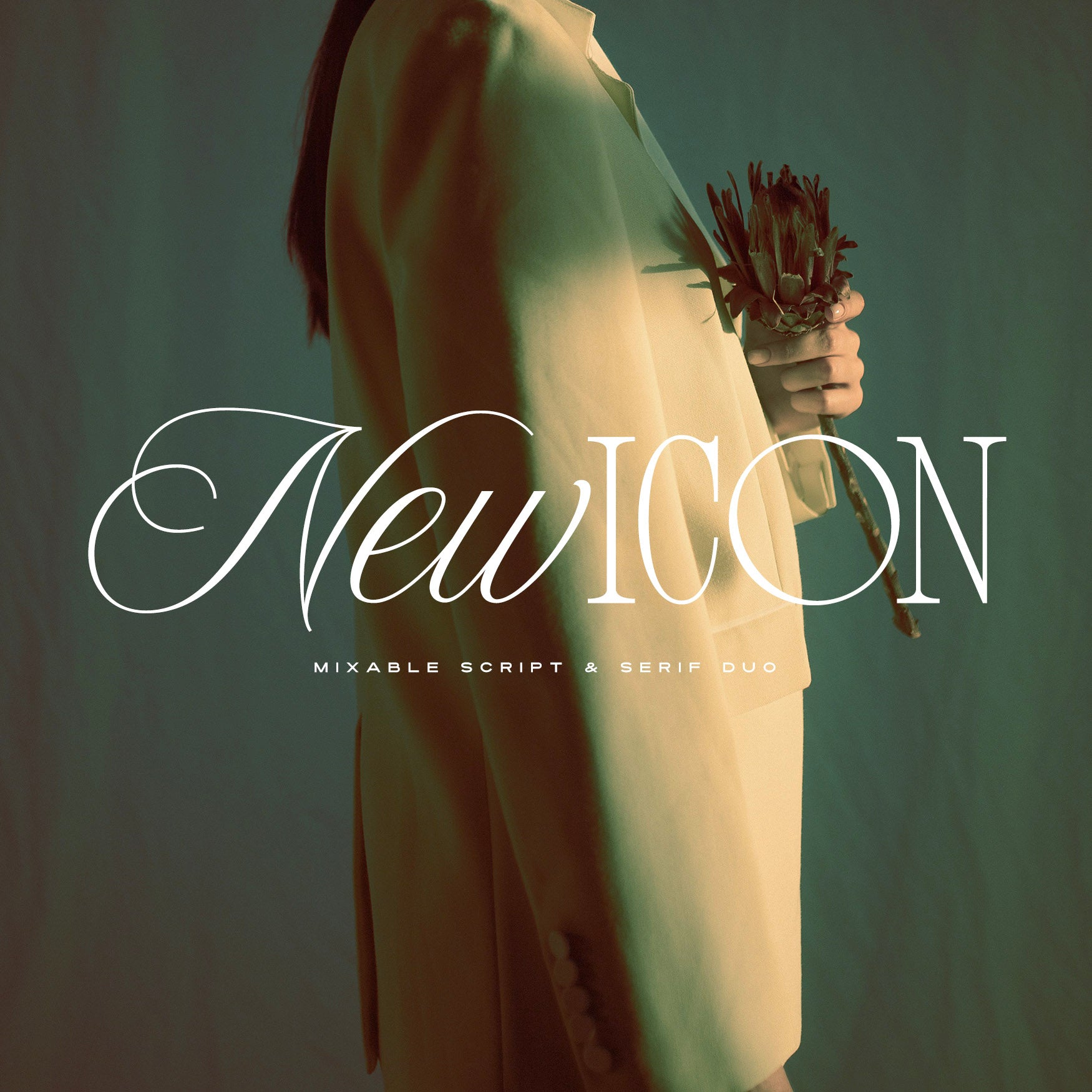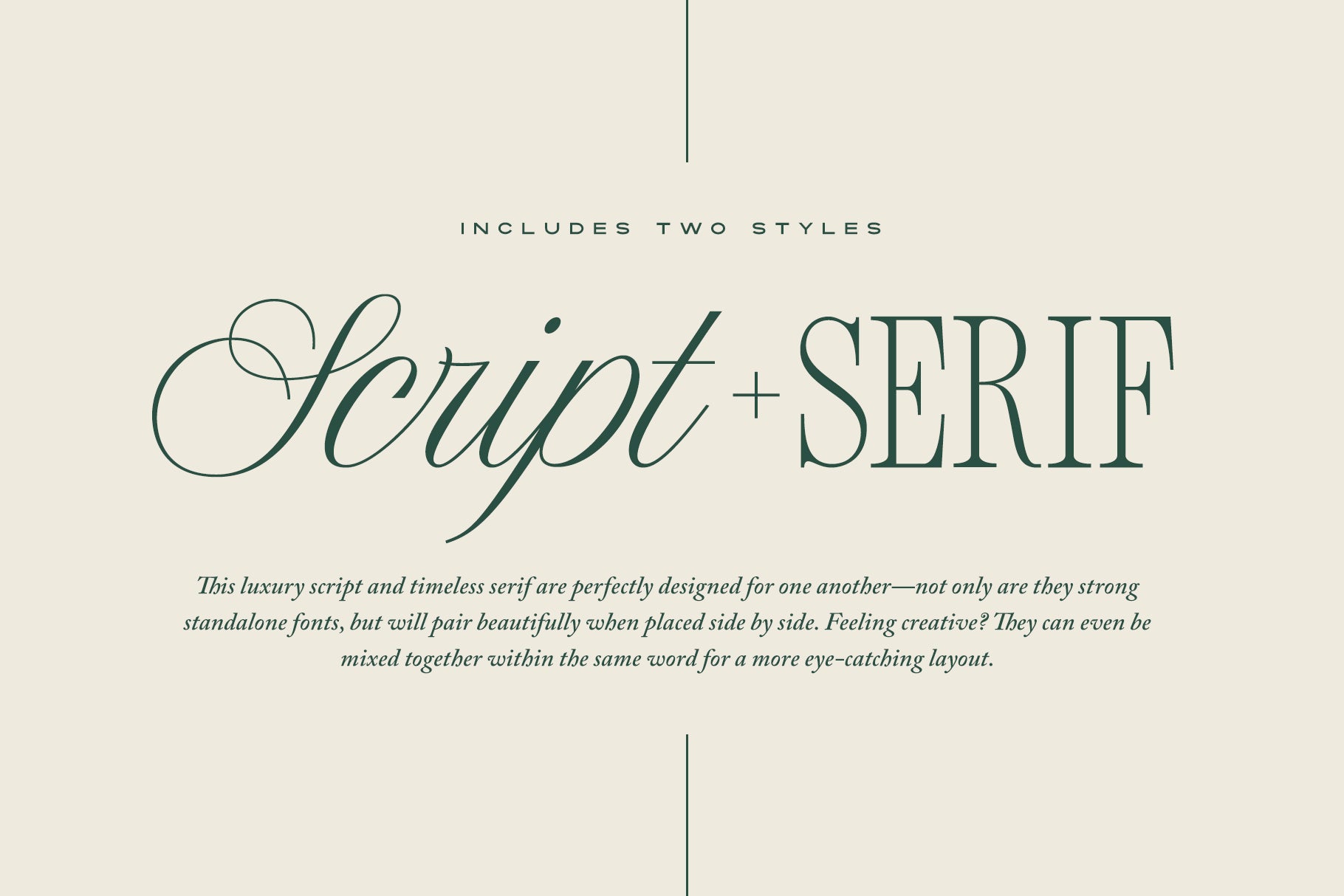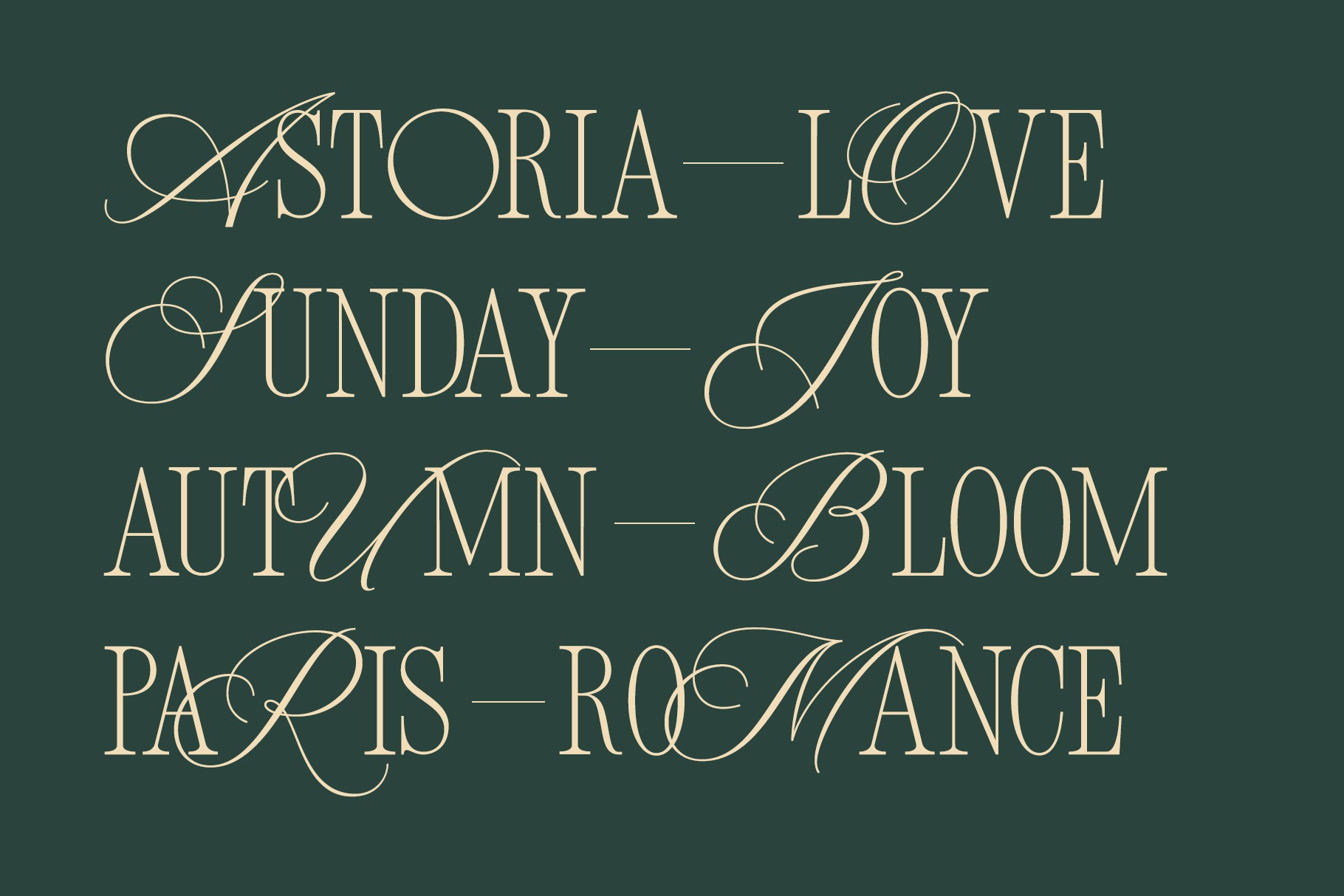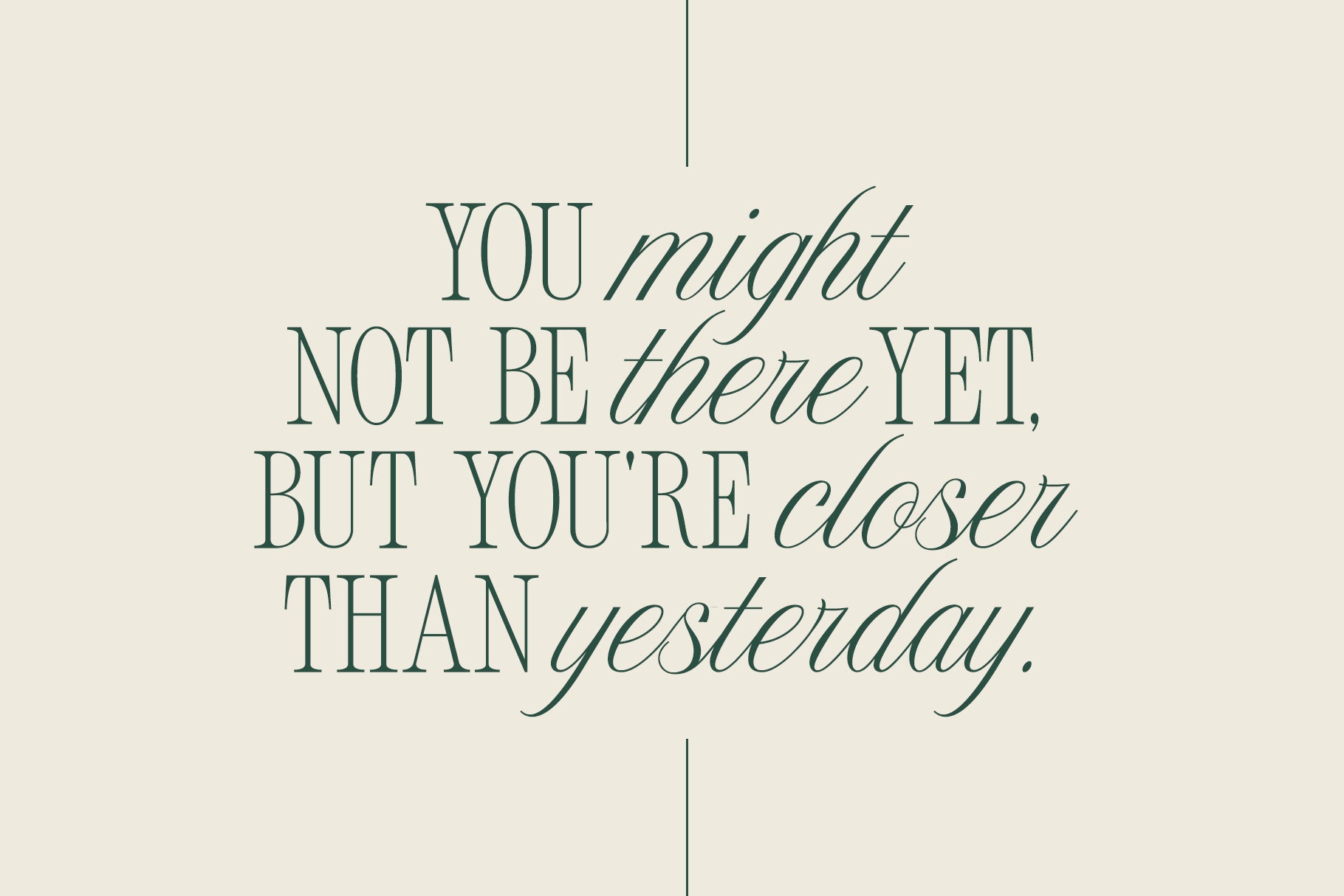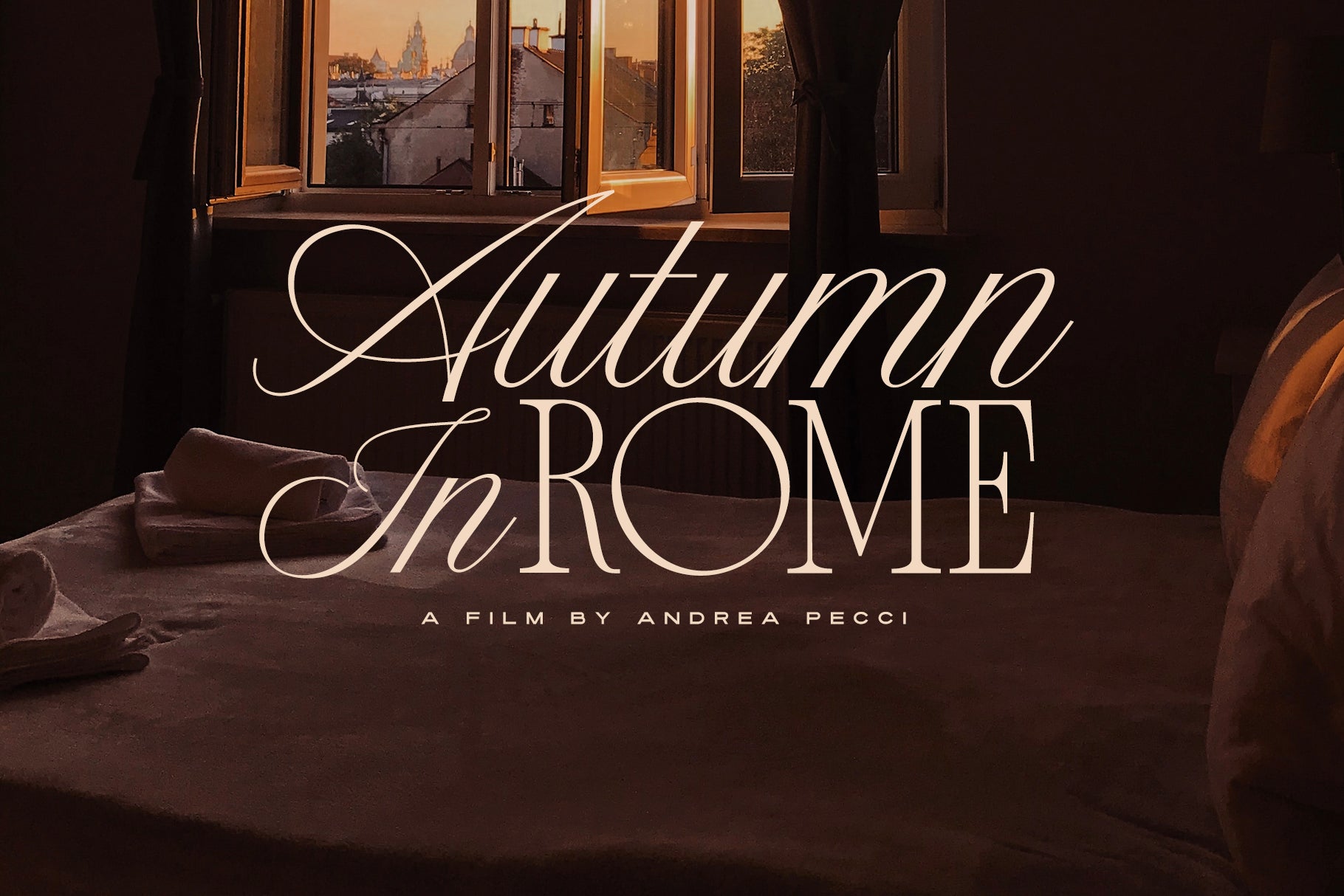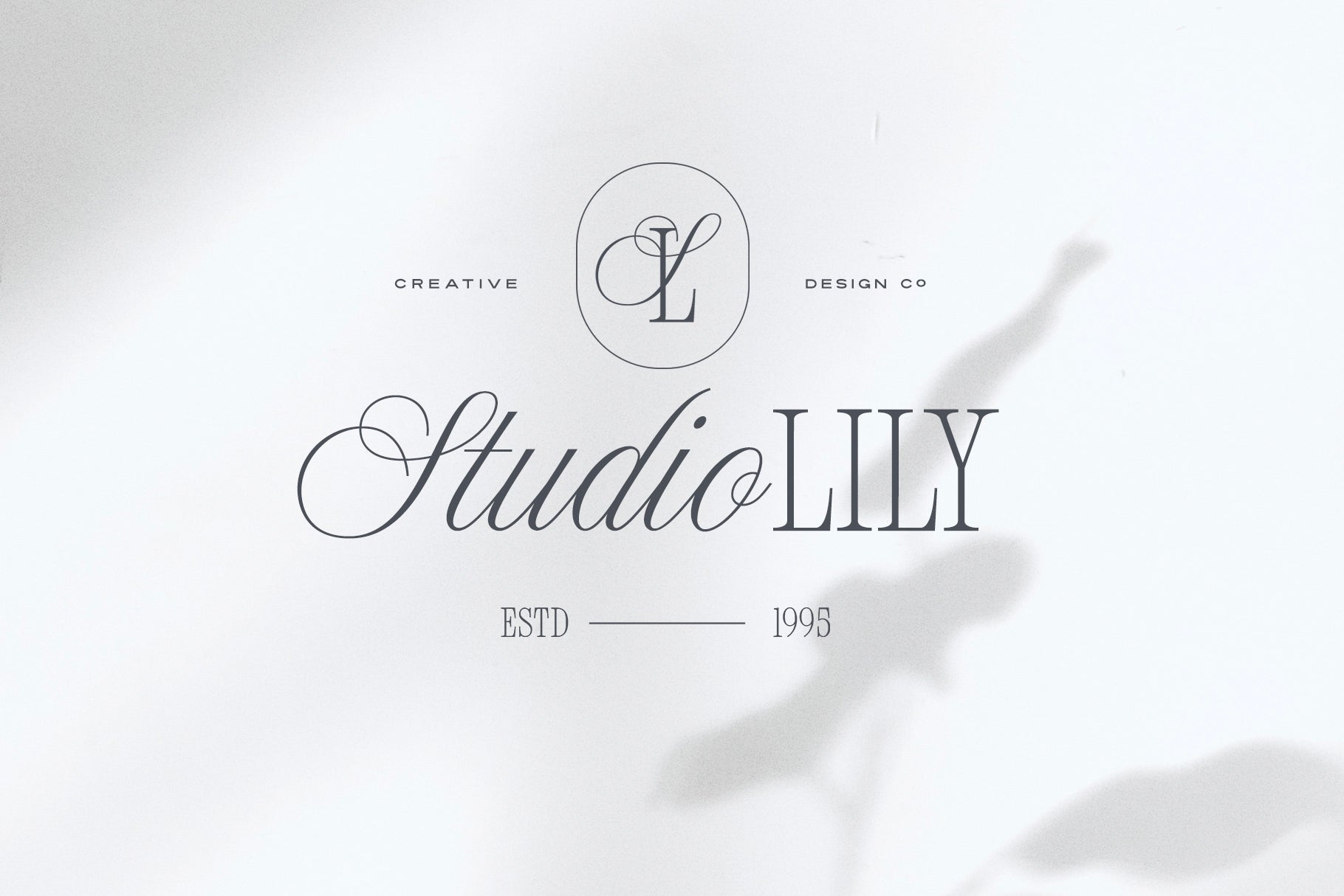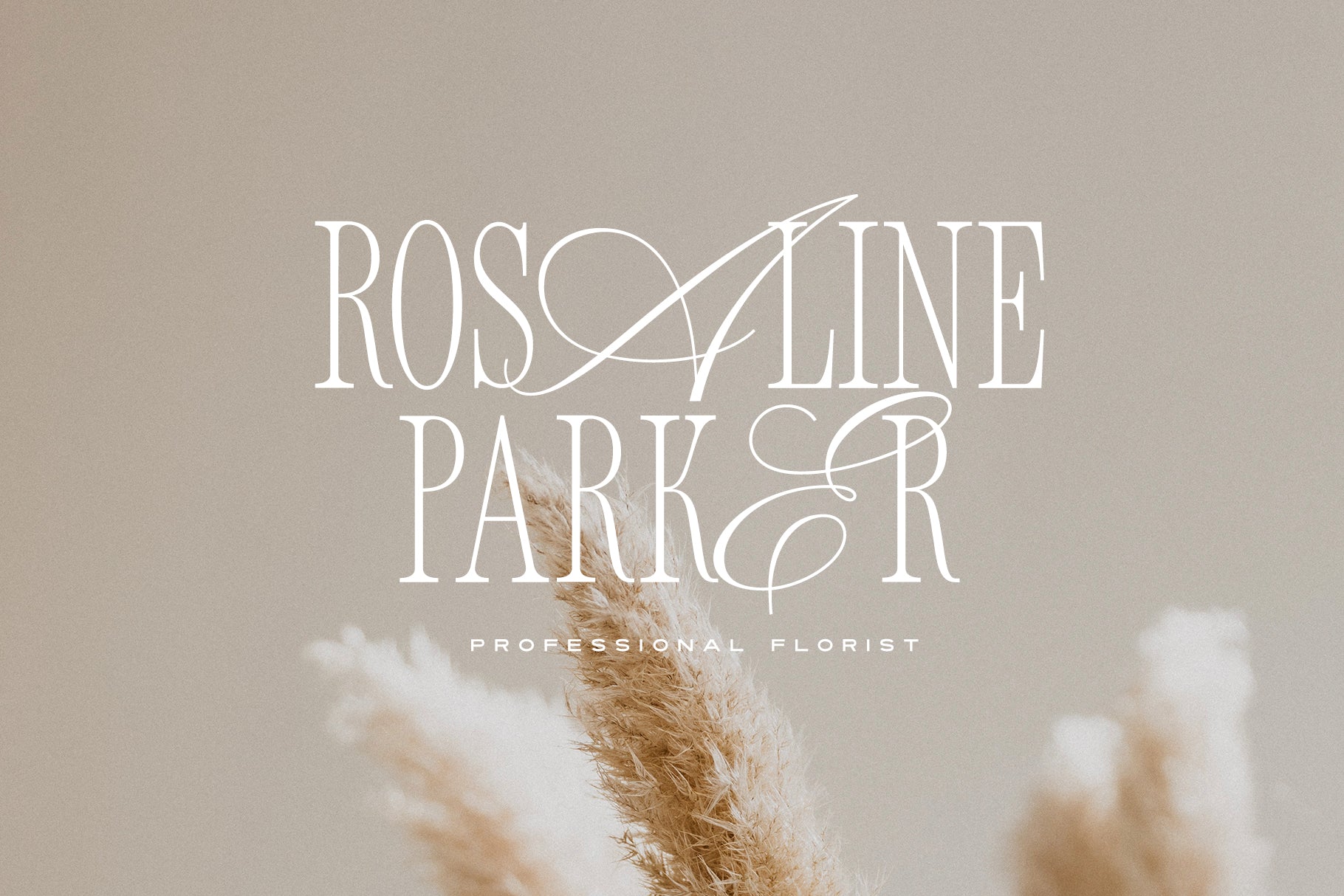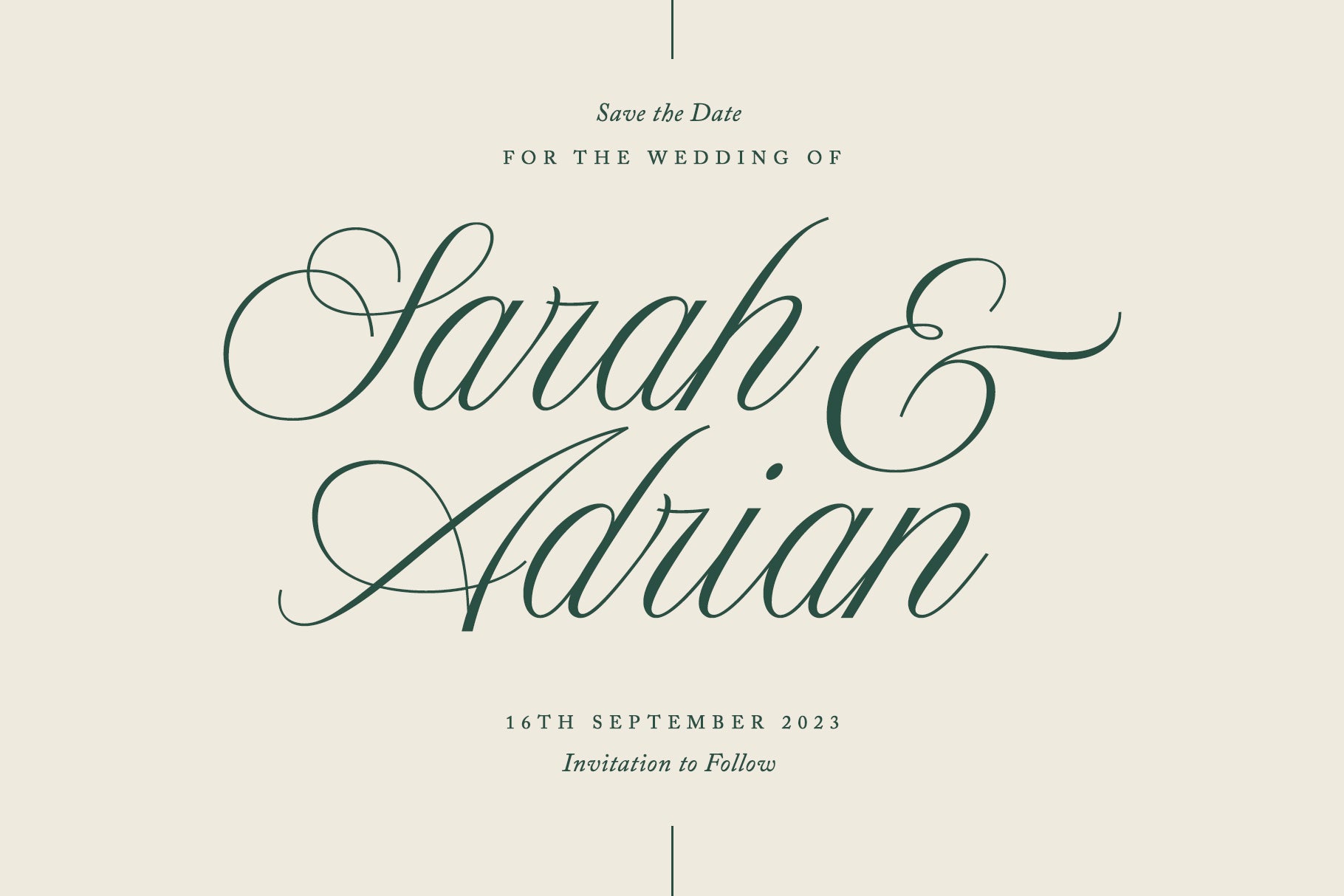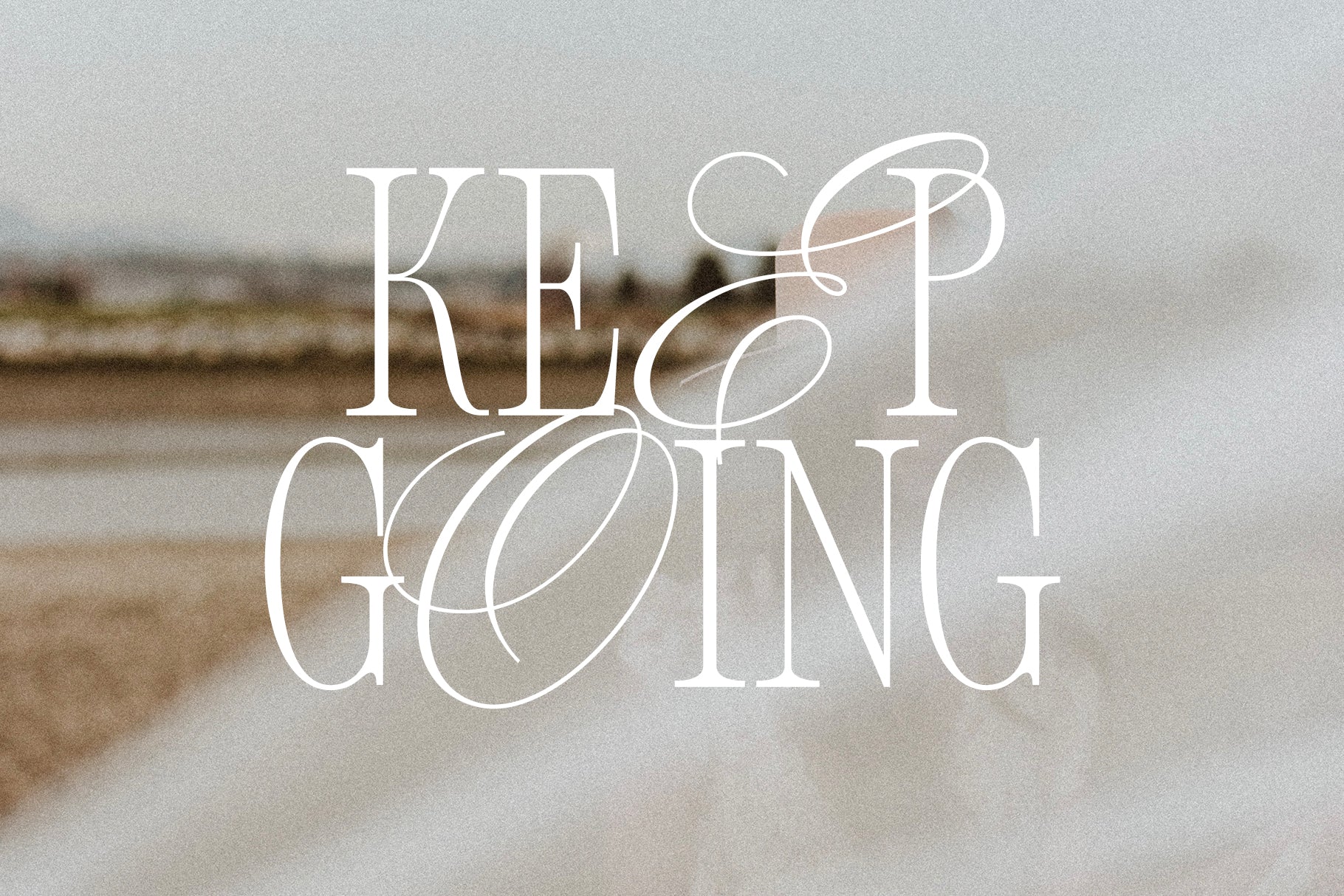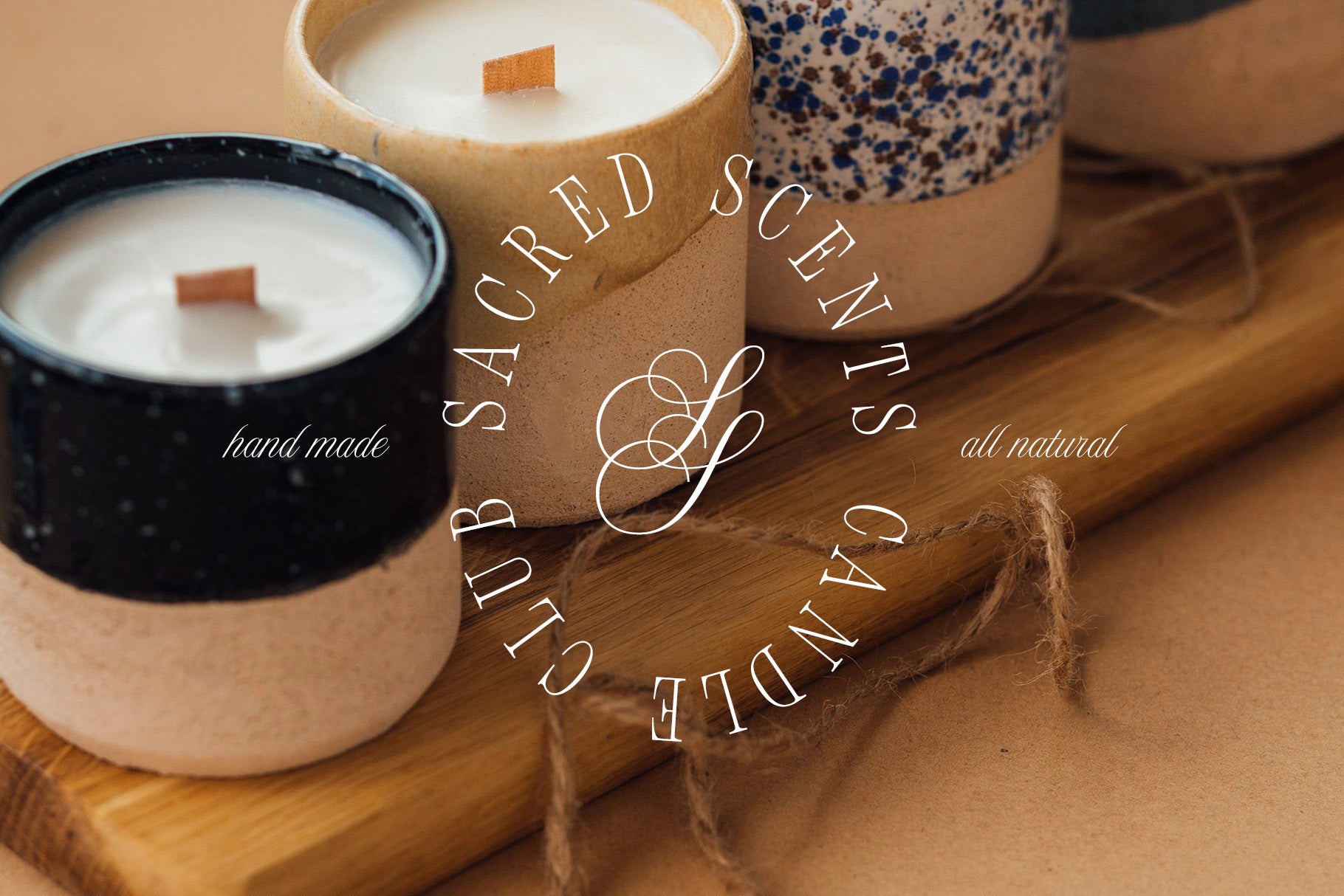
New Icon Font Duo
The New Icon Font Duo features a luxury script and a timeless serif font, designed to complement each other while also functioning well independently. This set includes the New Icon Serif, New Icon Serif Condensed, and New Icon Script, now with added lowercase and italic versions, providing a versatile range of five fonts for various design projects.